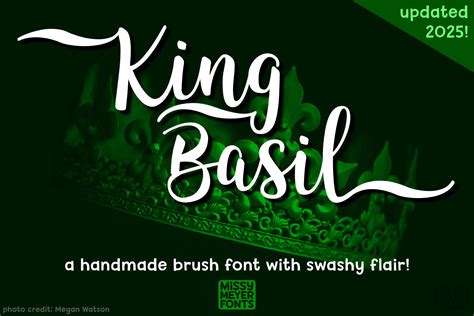
King Basil Font. Web have a look at this great font demo from missy meyer, called “king basil“. It’s a great handwritten font, with a brush effect and bouncy letters, perfect for mostly any type.
Web about king basil font. Web download, preview & design with king basil font using our powerful text font generator for free, or purchase the full version with a commercial license here. Web introducing king basil (formerly known as spiffy mcgee, before he ascended to the throne), my largest font yet! Meet king basil, a typeface that goes beyond the ordinary with a rich set of features, boasting 421 meticulously crafted glyphs. Web have a look at this great font demo from missy meyer, called “king basil“. It’s a great handwritten font, with a brush effect and bouncy letters, perfect for mostly any type. He is an american designer who created. Web this fantastic script typography king basil font was created by a great font designer known as missy meyer.
It’s a great handwritten font, with a brush effect and bouncy letters, perfect for mostly any type. Meet king basil, a typeface that goes beyond the ordinary with a rich set of features, boasting 421 meticulously crafted glyphs. Web about king basil font. Web this fantastic script typography king basil font was created by a great font designer known as missy meyer. Web introducing king basil (formerly known as spiffy mcgee, before he ascended to the throne), my largest font yet! It’s a great handwritten font, with a brush effect and bouncy letters, perfect for mostly any type. He is an american designer who created. Web download, preview & design with king basil font using our powerful text font generator for free, or purchase the full version with a commercial license here. Web have a look at this great font demo from missy meyer, called “king basil“.